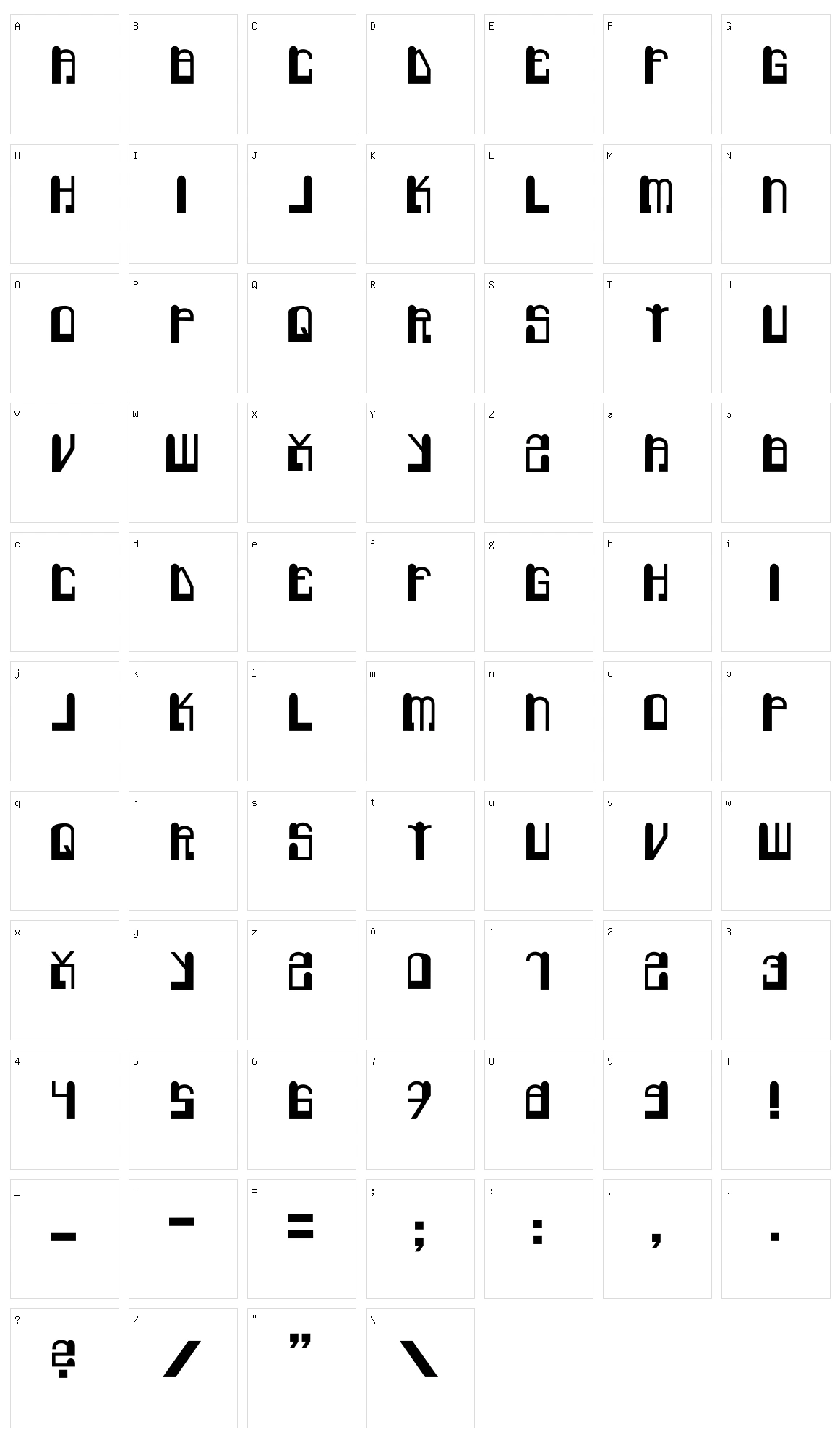
The free font Purple Tiger Cubs is carefully designed by Pierre Enorm Exner, showcasing a thoughtful balance of creativity and usability and falls under the Groovy font style. When you download the ZIP file, it contains only 3.92 KB of font files, making it lightweight and quick to download. Please review the license details below to understand permitted usage and distribution rights. If license information is not available, we recommend using this font for personal projects only or contacting the author directly for commercial usage permissions.